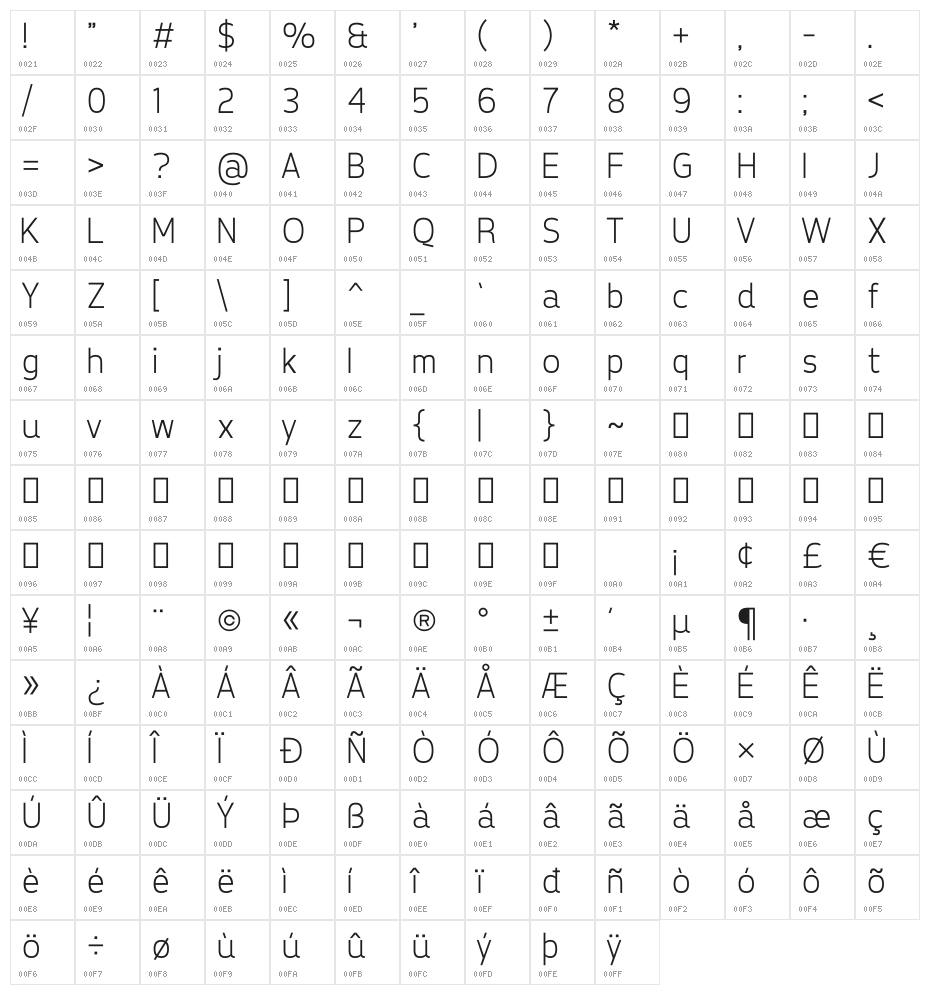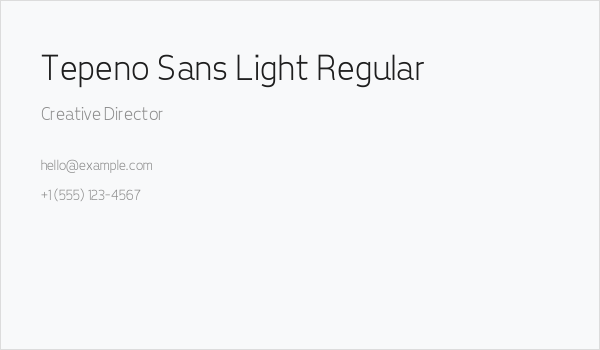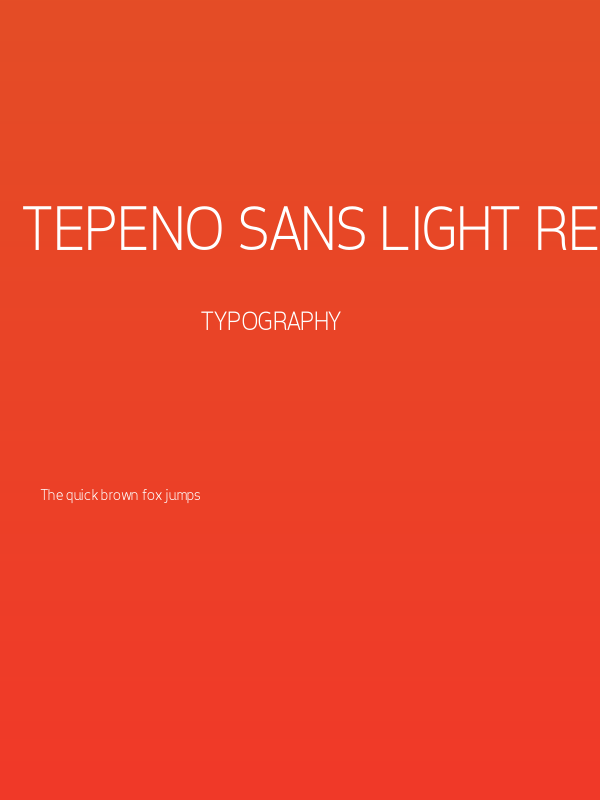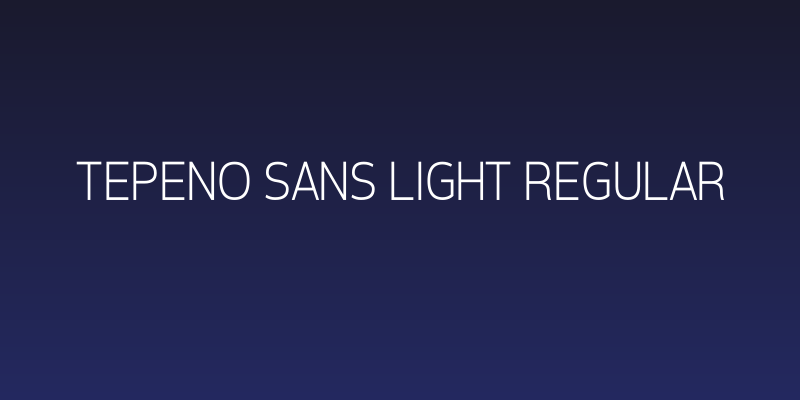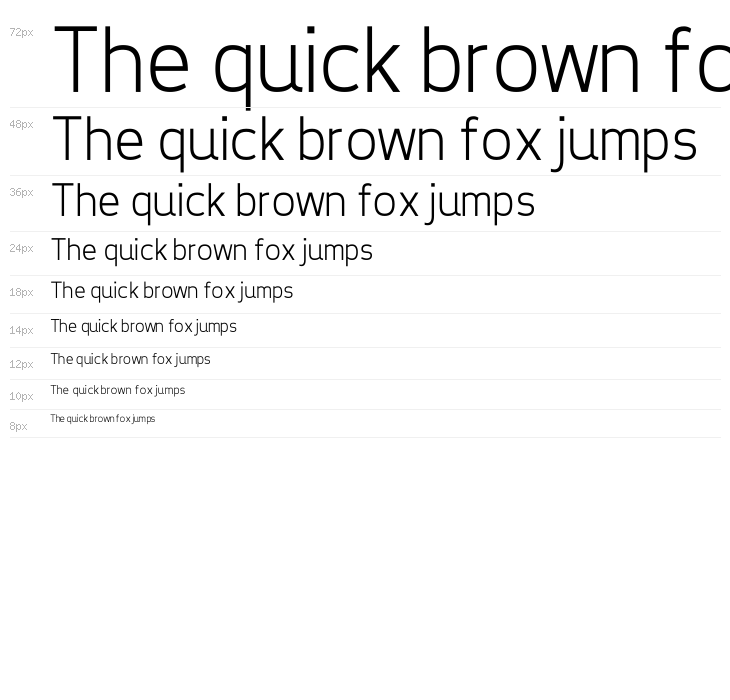
Tepeno Sans Light Regular Font
Tepeno Sans Light Regular Description
This font features a clean and modern sans-serif design with a light and regular weight. The characters are evenly spaced, providing a balanced and airy appearance. The uppercase and lowercase letters are well-proportioned, with smooth curves and straight lines that enhance readability. The numerals are clear and distinct, making them suitable for various applications. Special characters are included, maintaining the font's cohesive style. Overall, this font exudes a contemporary and minimalist aesthetic, ideal for projects requiring a sleek and professional look.
| Proposed Projects | Ideal for branding, web design, corporate materials, and editorial layouts. |